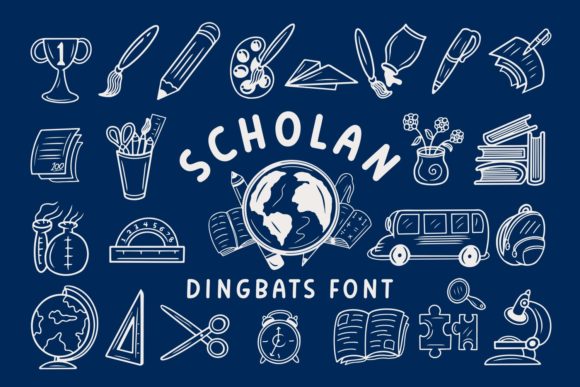
In a world saturated with visual noise, your calling card is your chance to make a lasting impression, to stand out from the crowd and leave an unforgettable mark. Scholan Font, a captivating dingbats font, is your secret weapon to create calling cards that resonate, that ignite curiosity, and that leave a lasting legacy.
With Scholan, your calling cards transcend mere pieces of paper; they transform into miniature works of art, each stroke and swirl a testament to your impeccable style and discerning taste. This back-to-school font breathes life into your projects, adding a touch of whimsy, a dash of intrigue, and a whole lot of personality.
Adorn your calling cards with Scholan's playful motifs, each symbol a carefully crafted gem, a visual delight that sparks conversation and kindles connections. From whimsical hearts and stars to elegant flourishes and intricate patterns, Scholan's diverse repertoire caters to every aesthetic, every mood, and every occasion.
No longer will your calling cards be confined to the mundane; with Scholan, they become canvases for your creativity, vessels for your unique voice. Unleash your imagination and let Scholan guide you as you craft calling cards that reflect your true essence, that capture the essence of your brand, and that leave an indelible mark on the hearts and minds of all who receive them.
Crafted with meticulous attention to detail by the renowned Dito (7NTypes), Scholan is not just a font; it's an experience, a journey into the realm of limitless creativity and self-expression. Its versatility knows no bounds, effortlessly adapting to a myriad of projects, from cheerful invitations to eye-catching posters and everything in between.
Join the ranks of the discerning, the style-savvy, and the trendsetters who have embraced Scholan's allure. Discover a font that transcends the ordinary, that elevates your designs to new heights, and that transforms your calling cards into unforgettable keepsakes. Embrace Scholan and witness the magic unfold.